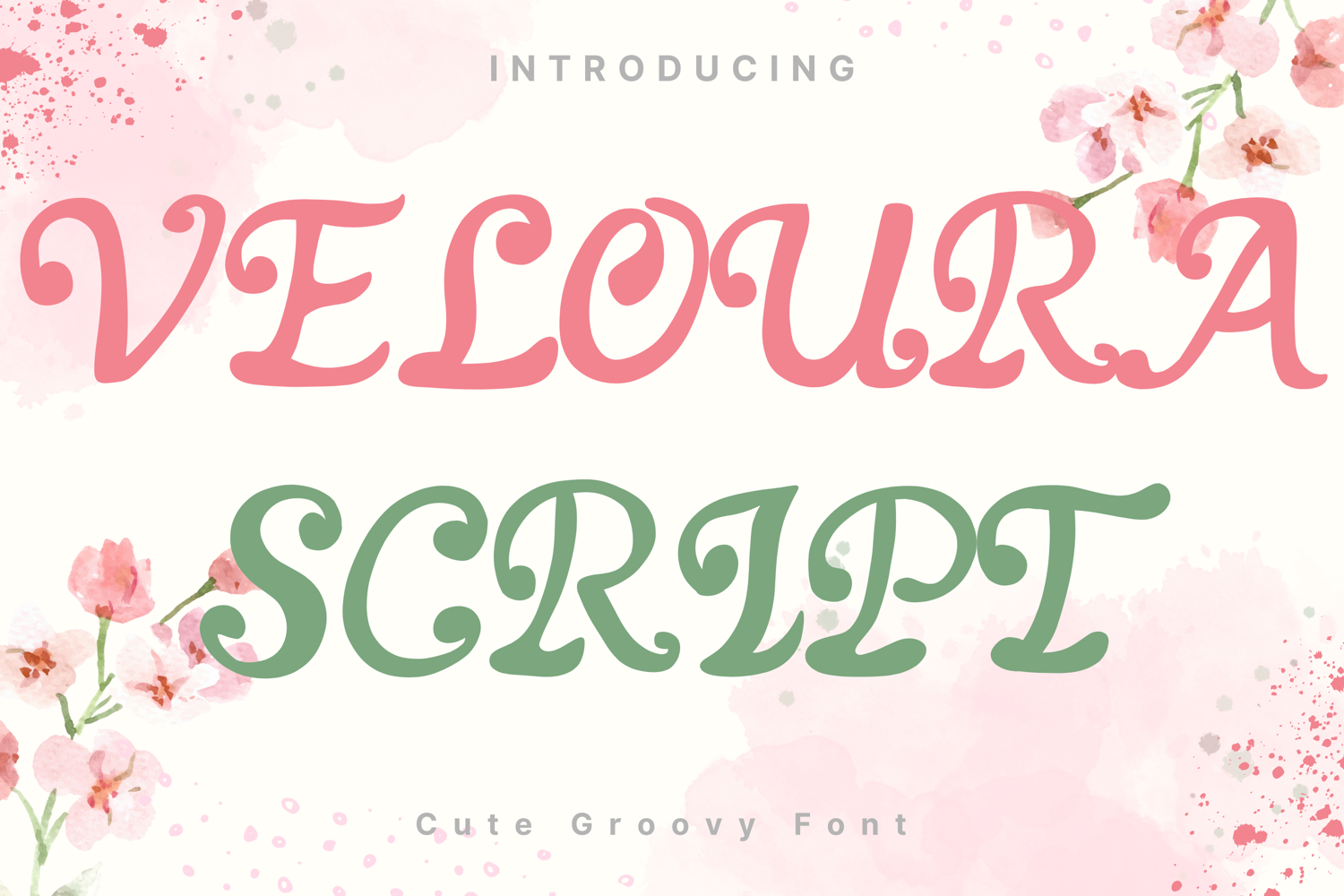
Veloura Script Style
VelouraScript
Veloura Script is a refined cursive display font with elegant loops and smooth strokes. Its classic handwritten style blends sophistication with a friendly charm, making it ideal for invitations, branding, product packaging, and editorial design. The gentle swirls add a romantic and timeless appeal, perfect for both modern and vintage-inspired projects.